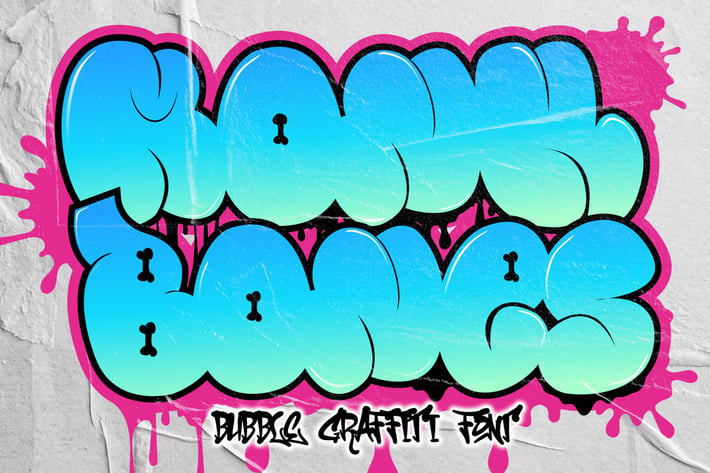
Monk Bones - Bubble Graffiti Font
Monk Bones is a decorative font with a graffiti style and bubble looks there are bones hollow in the characters. It will elevate a wide range of design projects to the highest level, be it branding, headings, invitations, logotypes, wall art illustrations, labels, and much more!